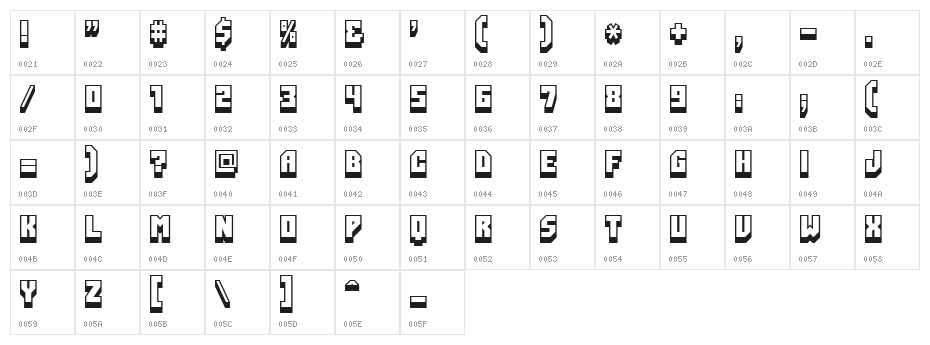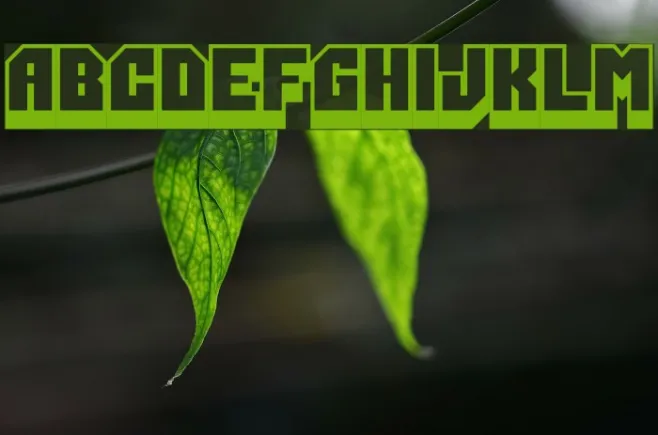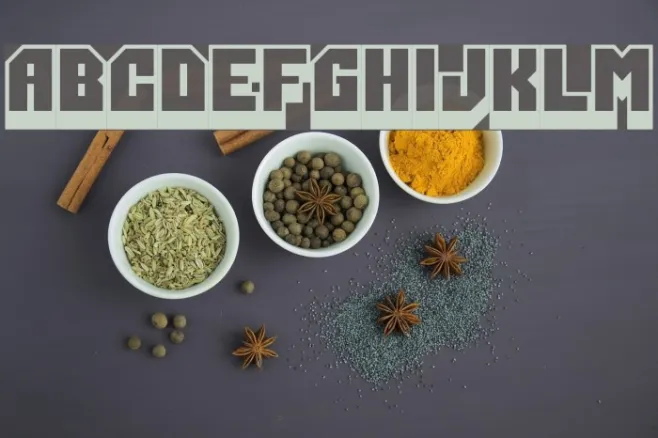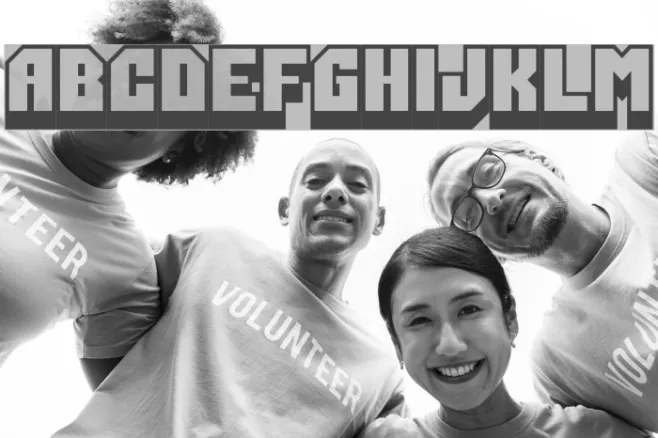
PartnerCenter Al Font
PartnerCenter Al Description
This font features a bold, three-dimensional block style with a strong presence. The characters are uppercase and exhibit a geometric design with sharp angles and thick lines, creating a sense of depth and solidity. The shadow effect enhances the 3D appearance, making it ideal for impactful visual statements. The numbers and special characters maintain the same robust style, ensuring consistency across all elements. This font is particularly suited for designs that require a bold and attention-grabbing typeface.